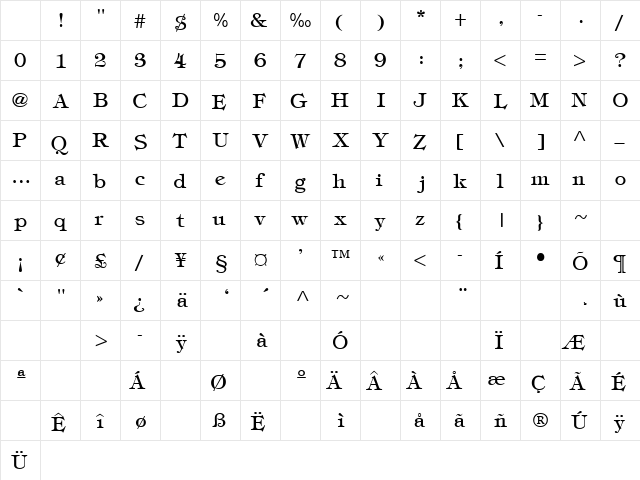
Complete SophisticateLightSSK Regular glyph index. Displaying only characters natively supported by SophisticateLightSSK Regular font.
SophisticateLightSSK is a composed and adaptable typeface that performs quietly and consistently across a wide range of design contexts. Its slender proportions lend an understated elegance to any composition.